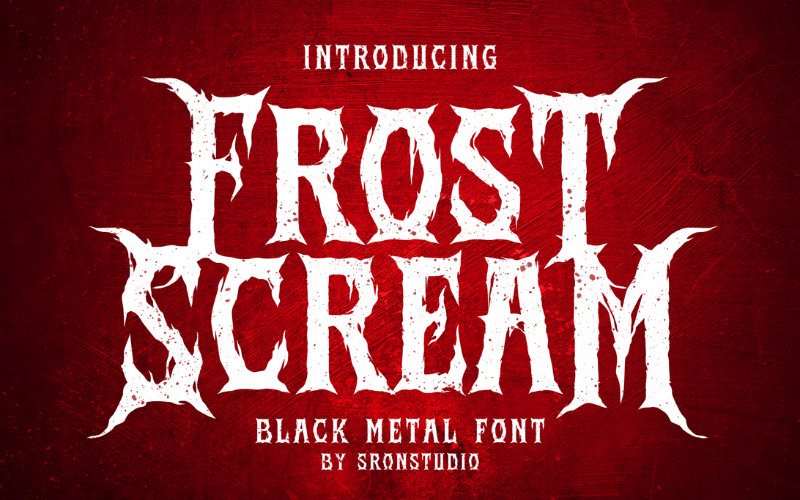
Frost Scream - Black Metal Font Font
About Frost Scream - Black Metal Font
Frost Scream is a fierce black metal font inspired by the raw intensity of extreme music. With sharp, jagged edges and an ominous design, this font is perfect for band logos, album covers, merchandise, and any project that demands a dark and aggressive aesthetic. Unleash the chaos with Frost Scream!
- Alternate
- Numeral & Punctuation
- Multilingual support